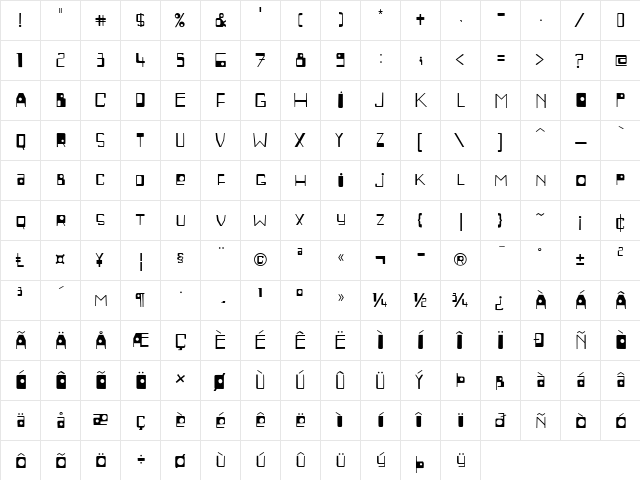
PF Beatnick Pro Regular
| Foundry | Parachute蠗orldwide |
| Designer | Charis Tsevis |
Design Context for PF Beatnick Pro Typeface
PF Beatnick Pro is a composed and adaptable typeface that performs quietly and consistently across a wide range of design contexts.